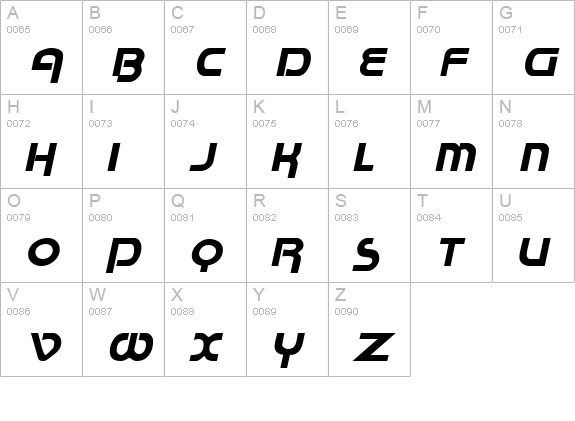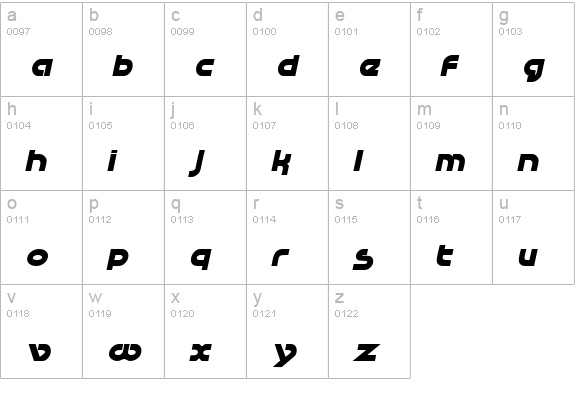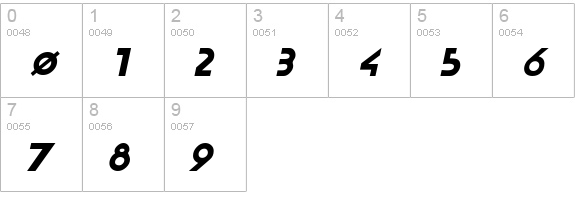
RaceTracSSK BoldItalic Font Details
RaceTracSSK BoldItalic is a captivating and dynamic font that effortlessly captures attention with its bold and italicized design. Its sleek and modern curves exude confidence and style, making it the perfect choice for projects that demand a strong visual impact. With its distinctive combination of boldness and italics, RaceTracSSK BoldItalic adds an extra level of emphasis and flair to any text. Whether it's for headlines, titles, or logos, this font is guaranteed to make a lasting impression. The versatility of RaceTracSSK BoldItalic extends to a wide range of creative projects, including advertisements, posters, websites, and more. Its unique design allows it to stand out from the crowd and grab the viewer's attention, making it an excellent choice for both print and digital media. One of the best features of RaceTracSSK BoldItalic is that it is freely available to download at FontsMarket.com. This means that you can easily access and use this font without any restrictions or limitations. Whether you are a professional designer or a casual user, you can enjoy the benefits of this font without any cost. So, if you're looking for a font that combines boldness, elegance, and free availability, RaceTracSSK BoldItalic is the perfect choice. With its eye-catching design and wide range of applications, it will surely elevate your designs to new heights. Don't wait any longer – download RaceTracSSK BoldItalic today and experience the power of this remarkable font.